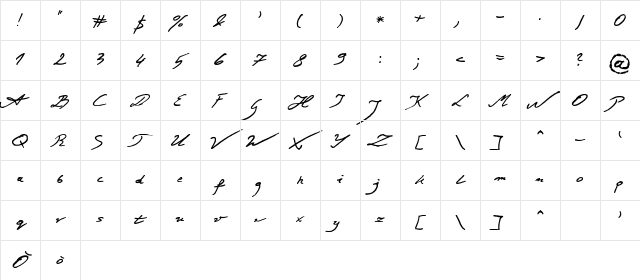
Jacek Zi-Jasi Normalny Free Font
Jacek Zi-Jasi Normalny
Style: Normalny
Designer: Tomasz Skowro￿
Design Context for Jacek Zi-Jasi
Jacek Zi-Jasi is a composed and adaptable typeface that performs quietly and consistently across a wide range of design contexts.